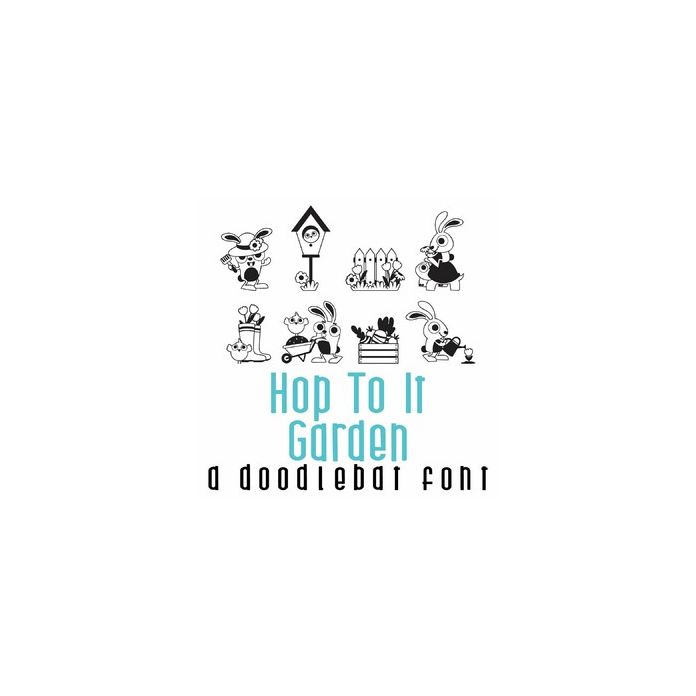
This adorable doodlebat font features 26 fun garden themed images. Perfect for cards, crafts, gifts, decor, scrap book pages, planner stickers and more!